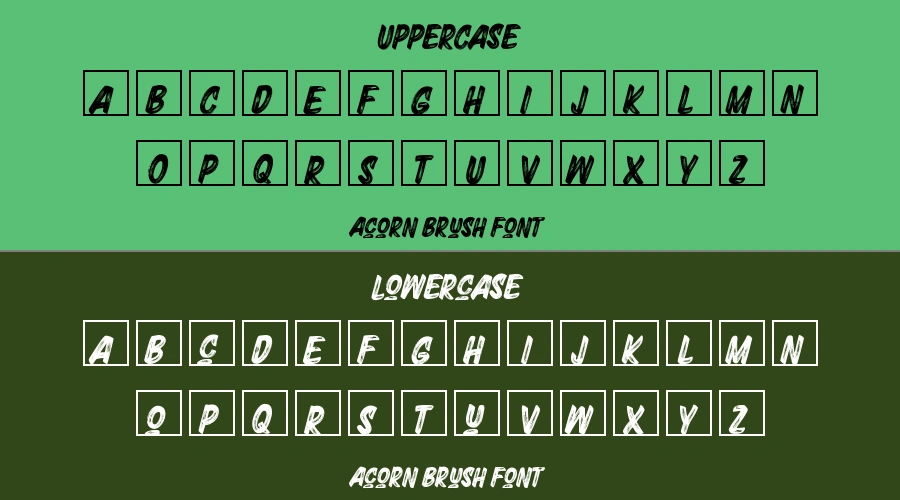
About Acorn Brush Font
Designed with precision, Acorn Brush Font merges dramatic swashes with accuracy in every character. This versatility makes it particularly effective for branding projects, where adaptability and brand differentiation directly impact communication quality. Each letterform demonstrates meticulous craftsmanship.
Technical excellence shines through elements like commanding presence and tabular figures, enhancing typographic versatility. In artistic statements settings, Acorn Brush Font proves its worth through superior multi-language support. The thoughtful execution of curve radius and market position ensures professional results.